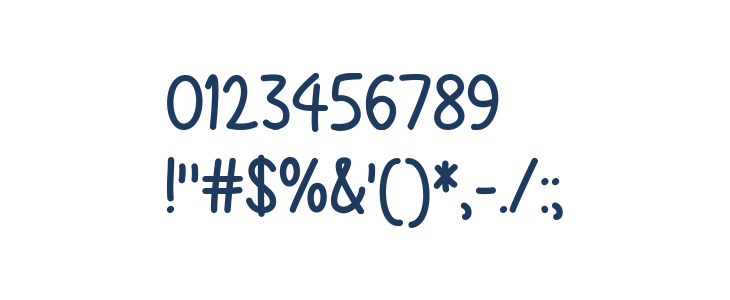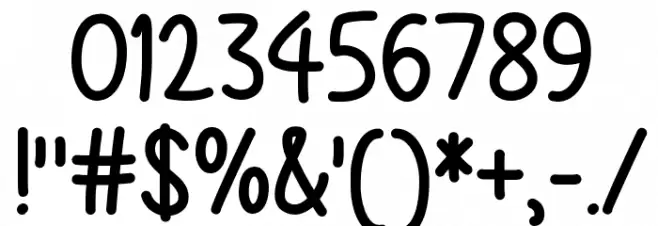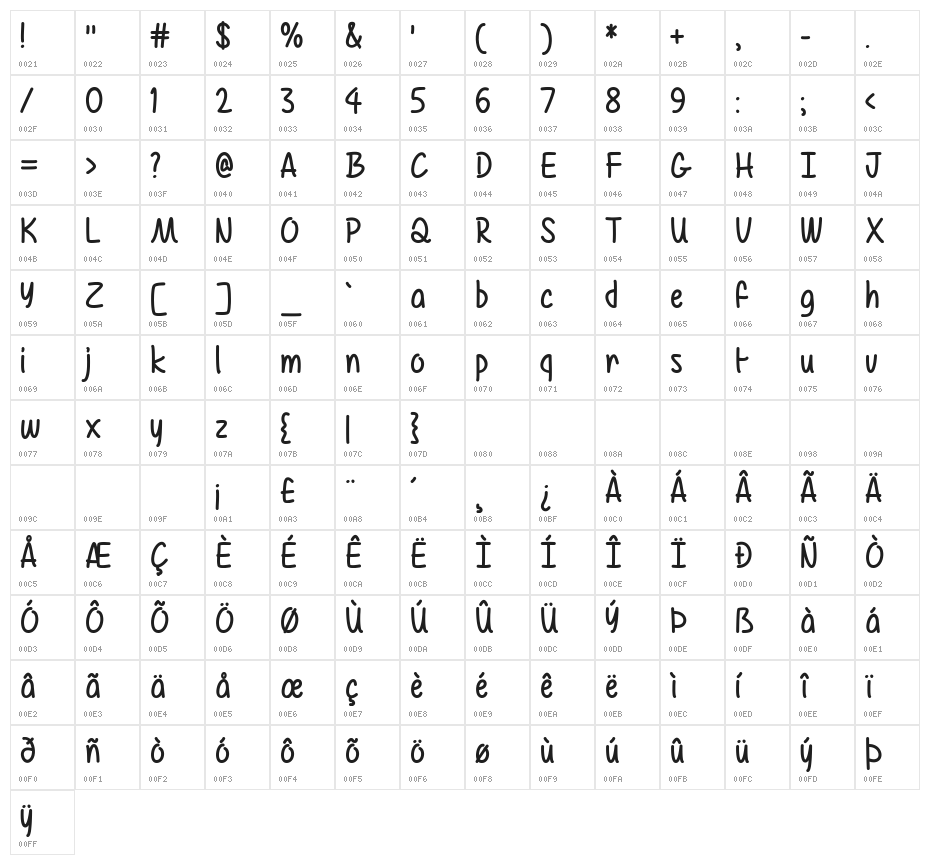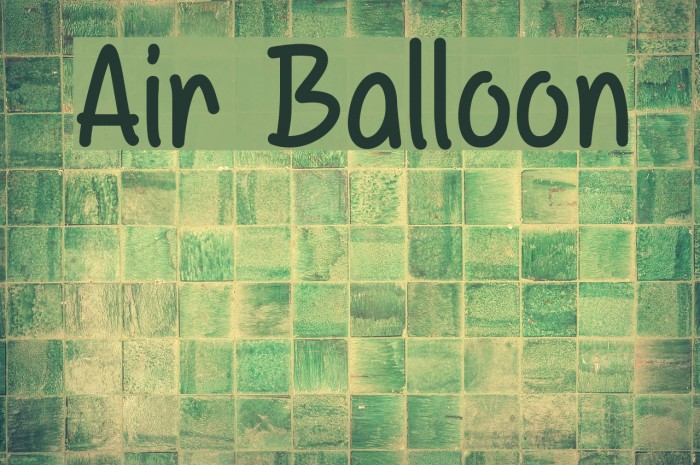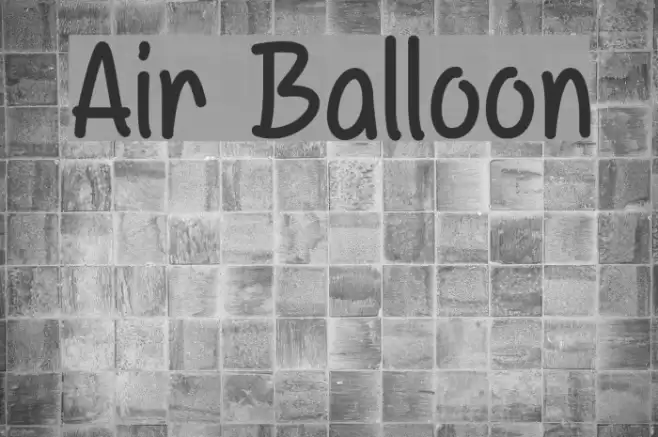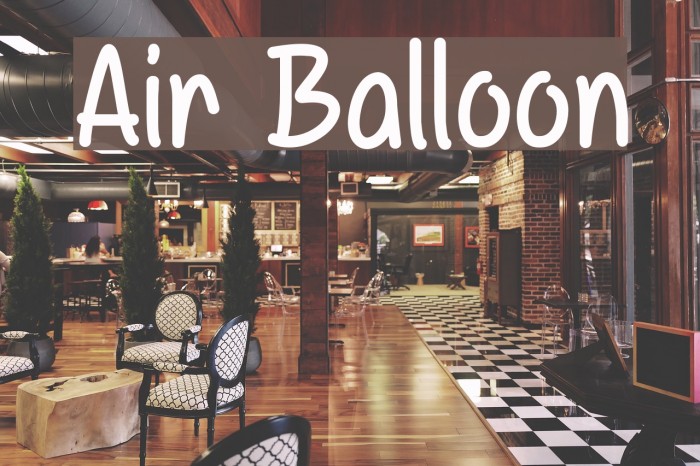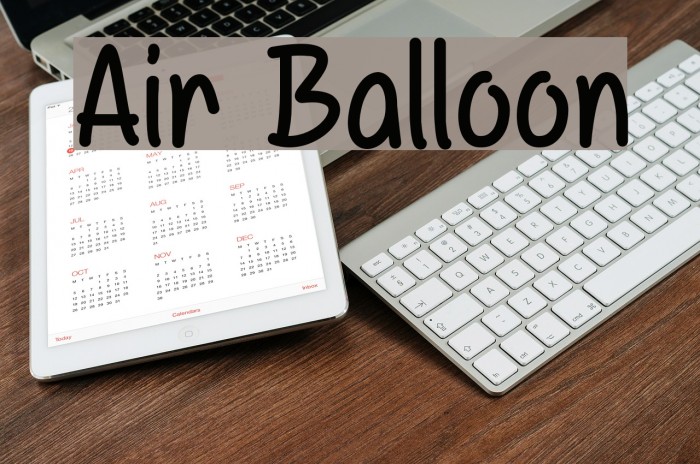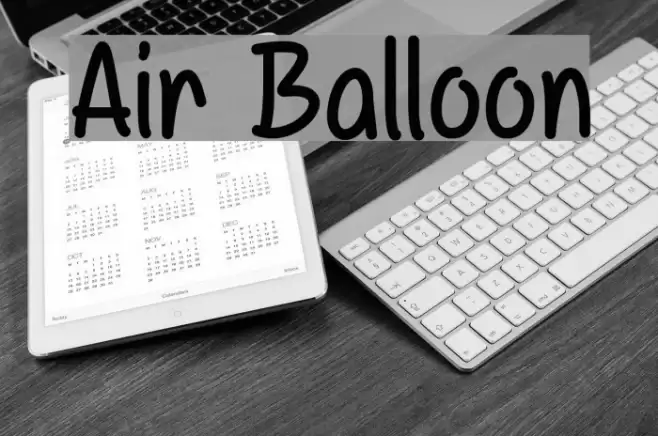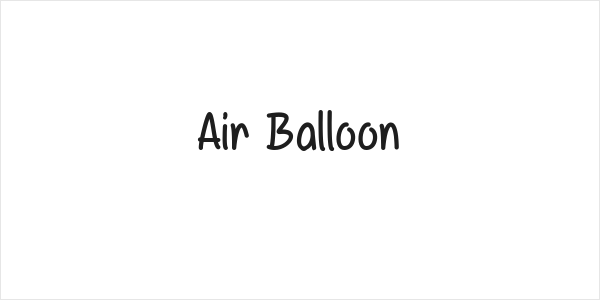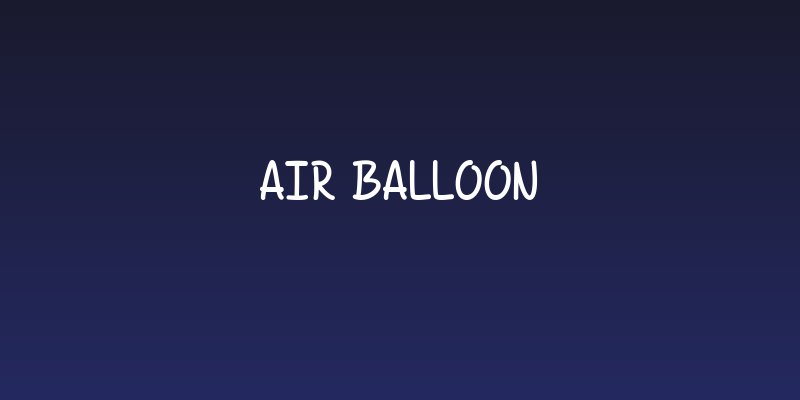
Air Balloon Font
Air Balloon Description
This playful and whimsical font features rounded, balloon-like characters that convey a sense of fun and lightheartedness. The strokes are smooth and consistent, with a uniform thickness that adds to its approachable and friendly appearance. The uppercase and lowercase letters maintain a consistent style, ensuring readability while adding a touch of creativity. The numbers and special characters are designed to match the overall aesthetic, making it versatile for various uses. Its informal style makes it ideal for projects that require a casual and inviting tone.
| Overall Style | Whimsical |
| Proposed Projects | Ideal for children's books, party invitations, greeting cards, and playful branding. |